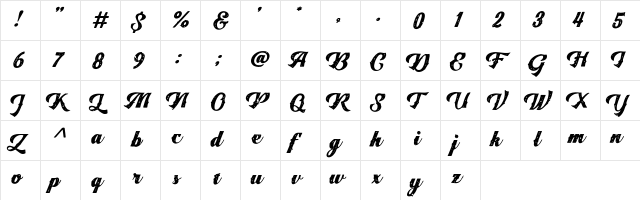
Tom Harvey Script Regular
Design Context for Tom Harvey Script Typeface
Tom Harvey Script brings a calligraphic fluidity to the page — its connecting strokes and expressive curves give it an unmistakably human quality.
Font Pairing: Combine Tom Harvey Script with a simple geometric sans for maximum contrast — the tension between flowing curves and clean structure is a classic typographic pairing.
Pro Tip: Pair Tom Harvey Script with a clean sans-serif for supporting text. The contrast between fluid script and geometric structure creates an elegant typographic hierarchy.